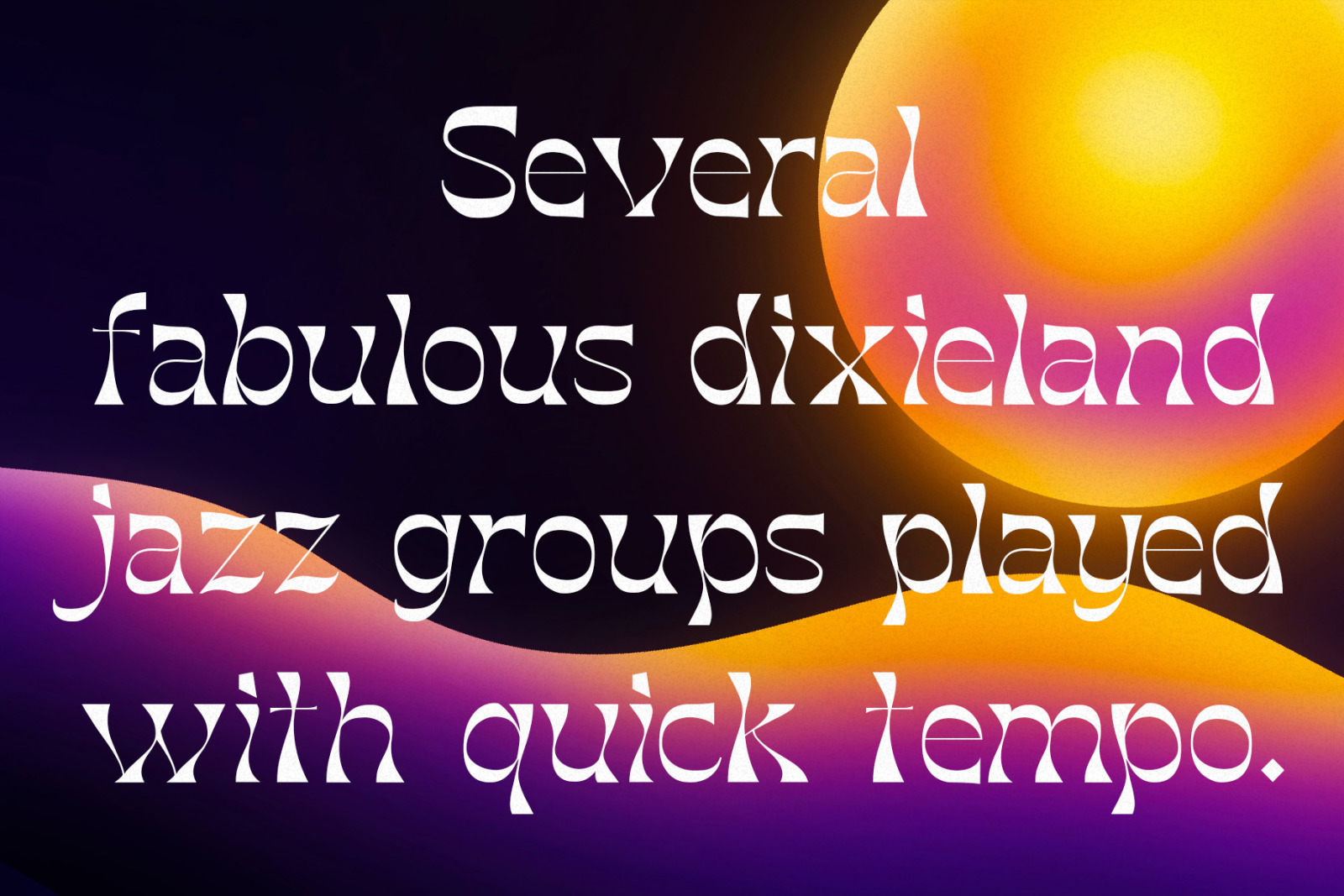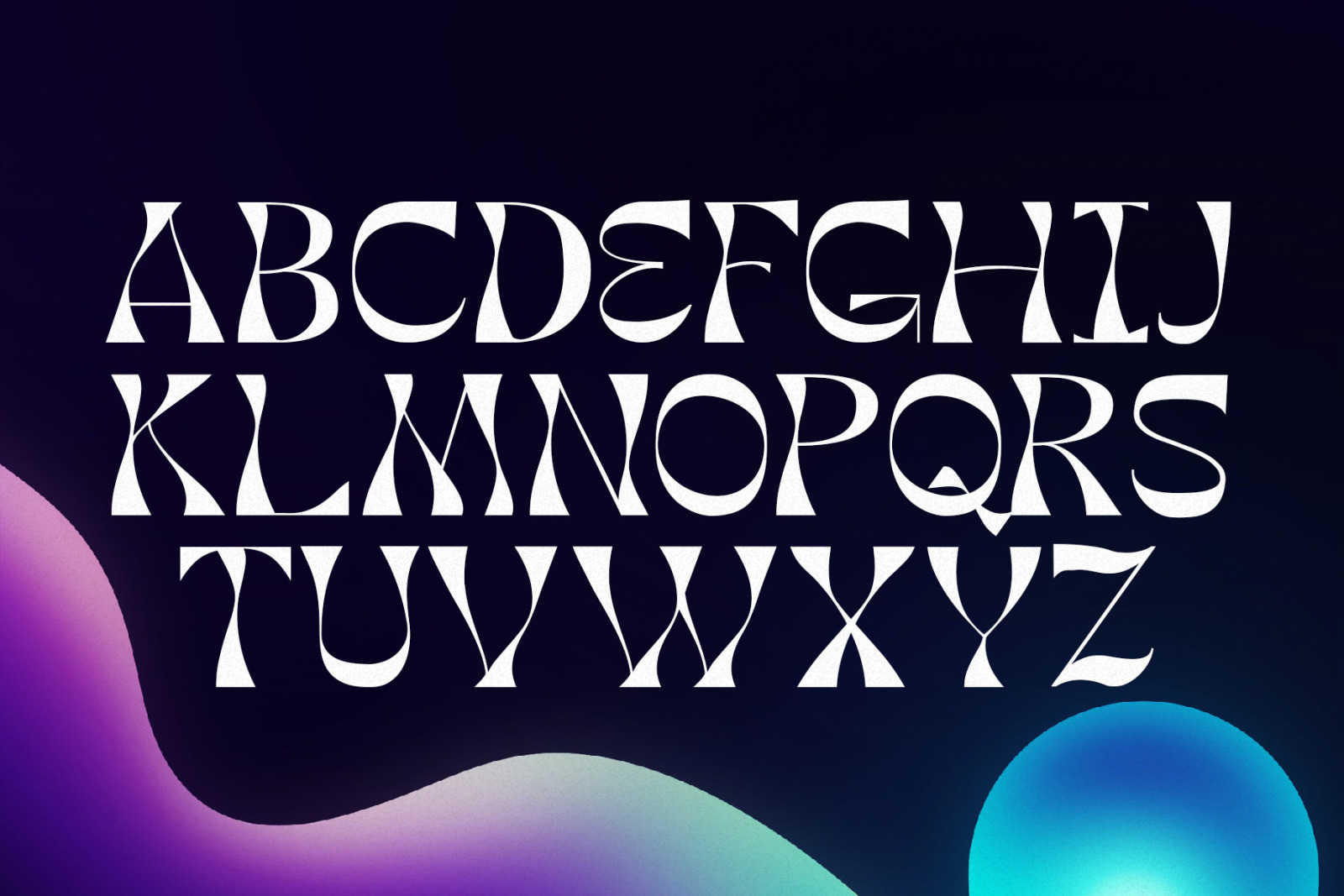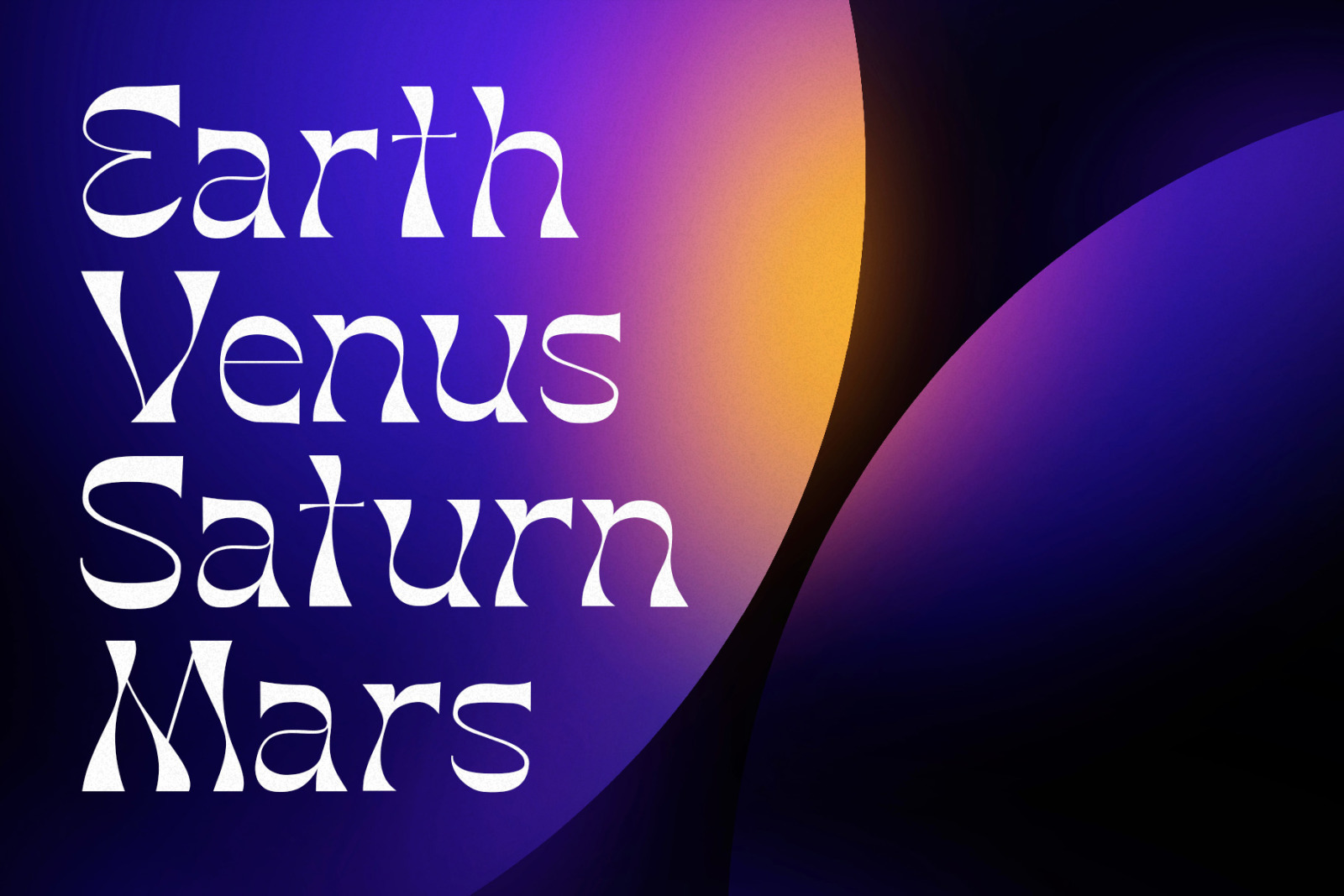
Hendrix Display Typeface
Inspired by the organic flow of art nouveau, Hendrix is an elegant yet quirky typeface. Thanks to its versatility it can be used for any project.